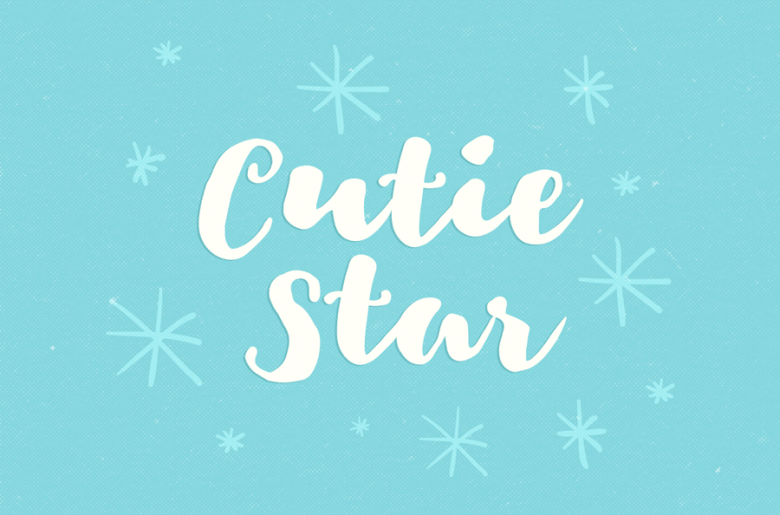
Cutie Star Font
Cutie Star Free Font is a modern brush script typeface with irregular baseline and natural hand written shapes. Drawn with regular brush pen and optimized to look like hand lettered brush.
This free font could be great for wedding invitation, greeting card, poster, quote, book cover, t-shirt design, and everything you may think it fits. Free to use for both personal and commercial projects.